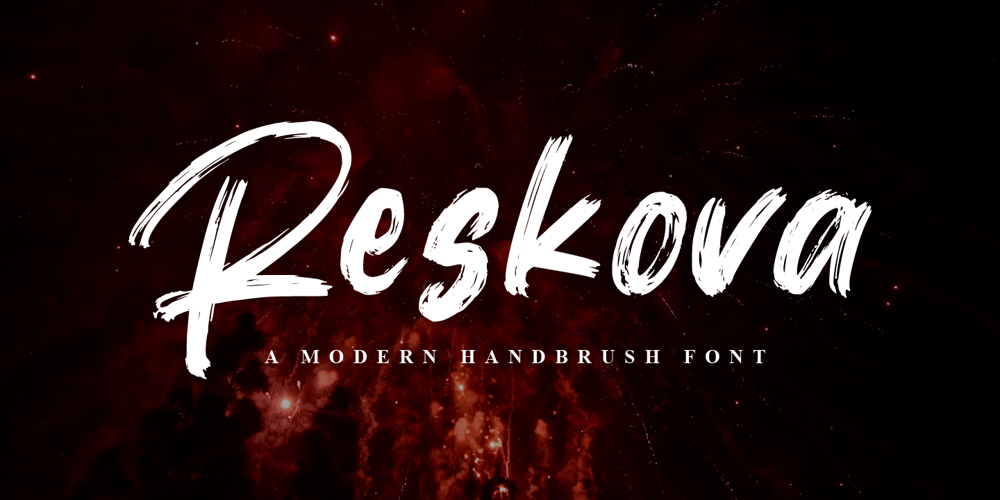
Reskova Font Family was designed by Hayinah and published by Rockboys Studio. Reskova contains 1 styles and family package options. Reskova is a unique brush font, perfect for use in modern design projects. This font has a slightly aggressive edge, and works well in displays for use in digital media.